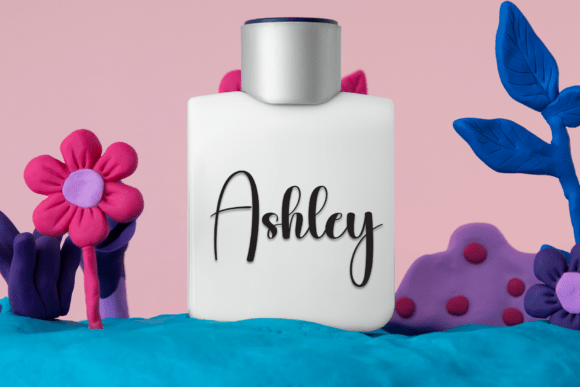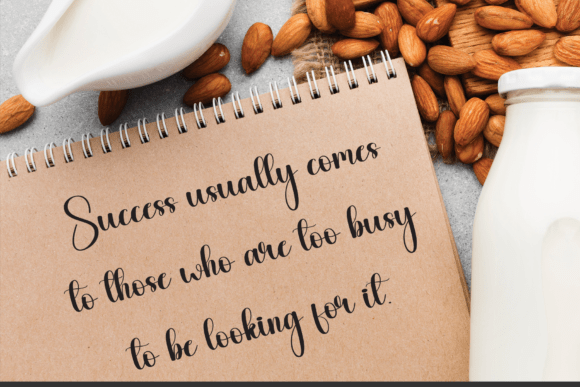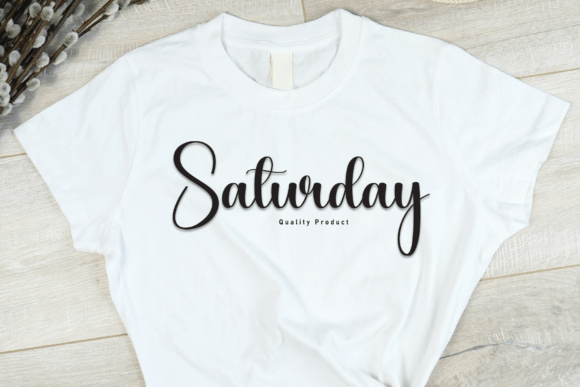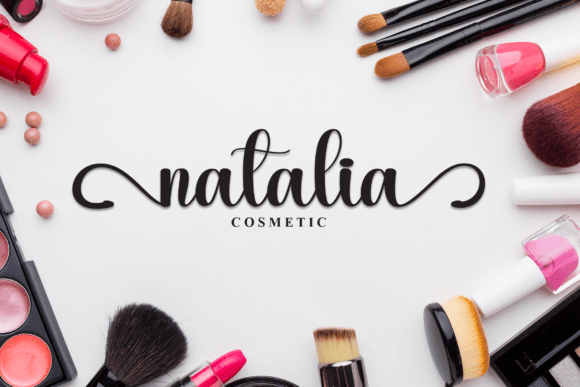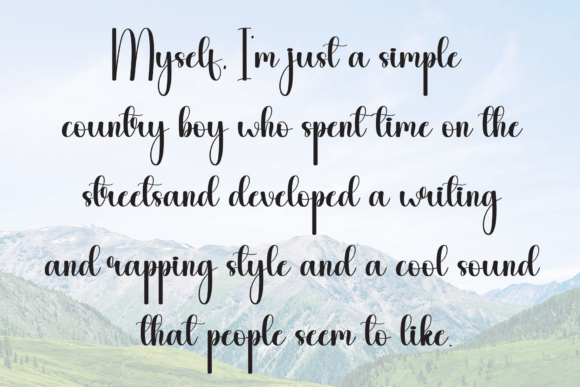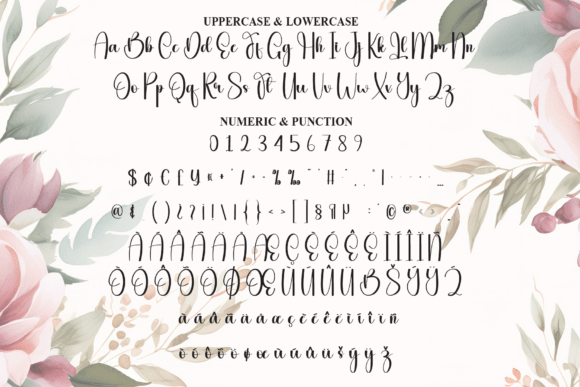
Introducing Ardila Font: The Perfect Blend of Modern Handwritten Elegance and Romantic Flair
In the world of typography, fonts play a crucial role in conveying the tone and personality of a brand, product, or service. For designers and crafters looking for a typeface that exudes elegance, sophistication, and a touch of romance, Ardila Font is an excellent choice. This modern handwritten font is designed to make a statement with its sweeping swashes and floral-inspired flair, perfect for a variety of creative projects.
What Makes Ardila Font Stand Out?
Ardila Font is a unique blend of brush-style curves and graceful presence, making it an ideal choice for projects that require a feminine touch. Its sweeping swashes and romantic flair evoke a sense of nostalgia and whimsy, perfect for weddings, social media graphics, boutique logos, and more. Whether you’re a designer looking for a font to add a personal touch to your clients’ projects or a crafter seeking a typeface to make your handmade products stand out, Ardila Font is sure to impress.
Key Features of Ardila Font
- Modern Handwritten Style: Ardila Font boasts a modern handwritten style that is both elegant and approachable.
- Sweeping Swashes: The font features beautiful sweeping swashes that add a touch of drama and flair to any project.
- Romantic Flair: With its floral-inspired curves and lines, Ardila Font is perfect for projects that require a romantic and feminine touch.
- Brush-Style Curves: The font’s brush-style curves give it a unique, hand-crafted feel that’s perfect for boutique logos, wedding invitations, and more.
- Versatile: Ardila Font is versatile and can be used for a variety of projects, from social media graphics to packaging design.
Ardila Font is perfect for a wide range of creative projects, including:
- Weddings: Use Ardila Font to create beautiful wedding invitations, save-the-date cards, and wedding stationery.
- Social Media Graphics: Add a touch of elegance to your social media graphics, including Instagram posts, Facebook graphics, and more.
- Boutique Logos: Use Ardila Font to create stunning boutique logos that reflect your brand’s personality and style.
- Handmade Products: Add a personal touch to your handmade products, such as craft labels, packaging, and more.
Tips for Using Ardila Font
To get the most out of Ardila Font, here are a few tips to keep in mind:
- Pair with Neutral Colors: Pair Ardila Font with neutral colors, such as white, beige, or pastel shades, to let the font’s elegance shine.
- Experiment with Swashes: Experiment with the font’s sweeping swashes to add drama and flair to your projects.
- Use for Headlines and Titles: Use Ardila Font for headlines and titles to add a touch of sophistication and elegance.
Ardila Font is a stunning modern handwritten font that is perfect for designers and crafters looking for a typeface that exudes elegance, sophistication, and romance. With its sweeping swashes, romantic flair, and brush-style curves, Ardila Font is sure to make a statement in any project. Whether you’re working on a wedding invitation, social media graphic, boutique logo, or handmade product, Ardila Font is an excellent choice.